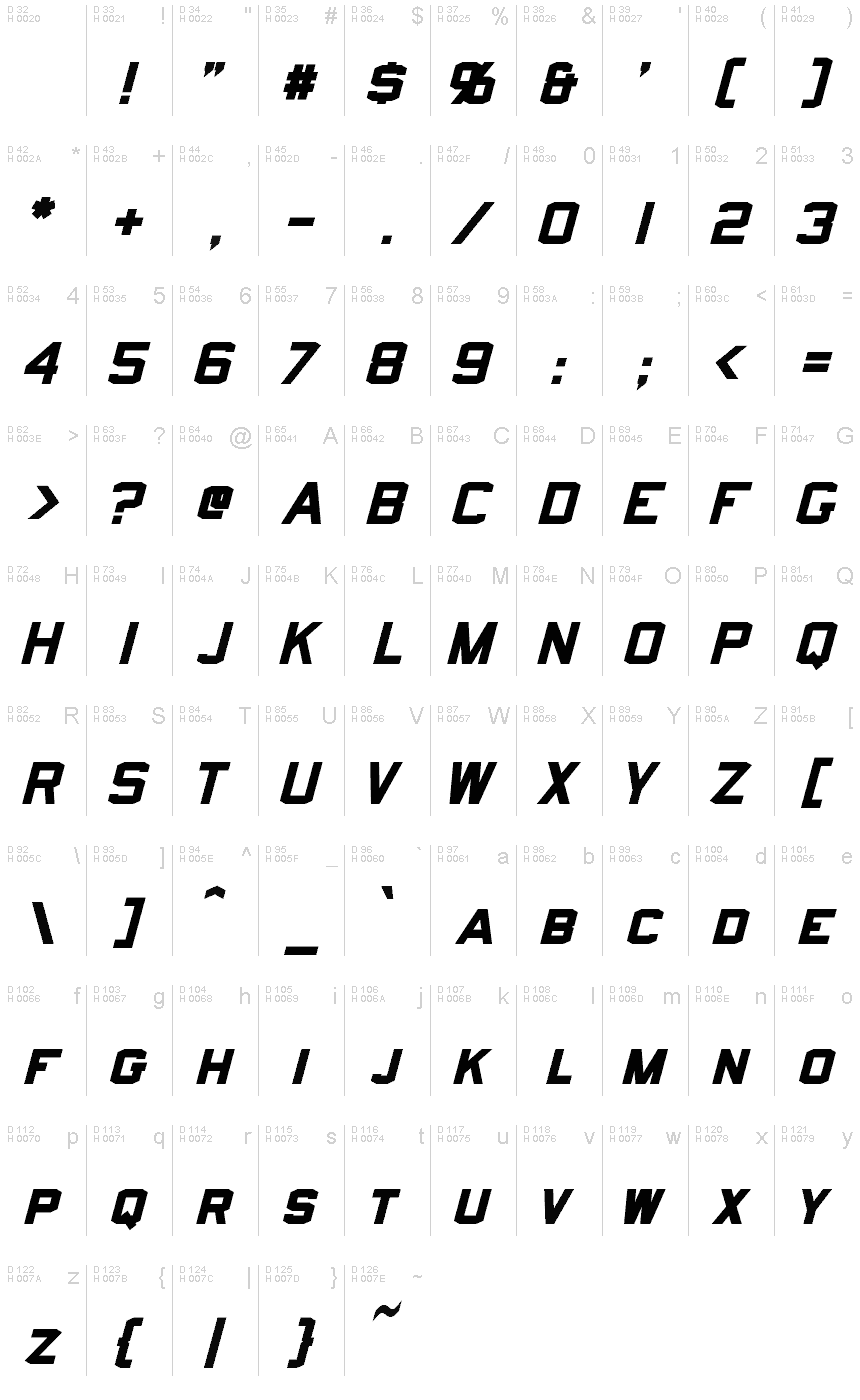
Norfolk Bold Italic is a striking, military-inspired font that exudes a sense of strength and authority. Designed by Neale Davidson, this robust typeface draws inspiration from the lettering used on US Navy ships and submarines. The bold, angular letterforms convey a sense of ruggedness and command, making it an excellent choice for headings, logos, and branding projects that require a bold, attention-grabbing aesthetic.
The font's extended character set, including a full alphabet, smaller-case letters, and a euro symbol, provides versatility and ensures its suitability for a wide range of applications. Norfolk Bold Italic's distinct visual identity makes it an ideal selection for designs that need to communicate a strong, military-inspired aesthetic, such as in the fields of defense, engineering, or heavy industry.